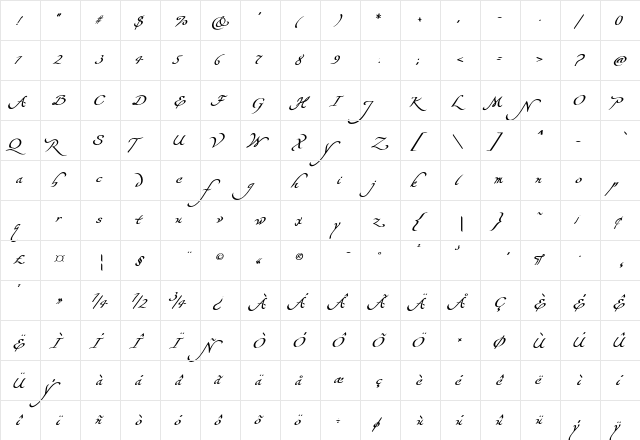
Yevida Potens Potens
| Foundry | Jeremy Dooley |
Design Context for Yevida Potens Typeface
Yevida Potens is a composed and adaptable typeface that performs quietly and consistently across a wide range of design contexts.